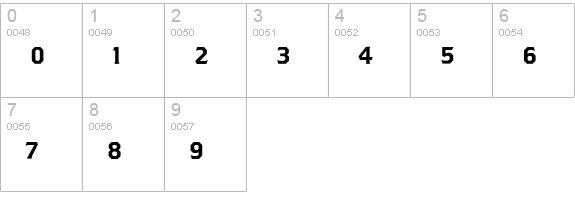
BrothersAlternates Font Details
BrothersAlternates font is a versatile and dynamic typeface that exudes strength and character. With its bold letterforms and distinctive style, this font is perfect for creating impactful and eye-catching designs. BrothersAlternates offers a unique twist on traditional typography, making it a standout choice for various creative projects. This font comes with a set of alternate characters that add a touch of creativity and flair to your designs. Whether you're working on a logo, branding materials, or a poster, BrothersAlternates will help you make a lasting impression. Best of all, BrothersAlternates font is available for free download at FontsMarket.com. So go ahead and add this stylish and modern font to your collection today!